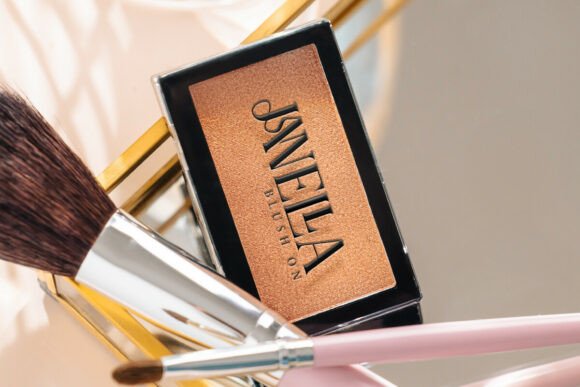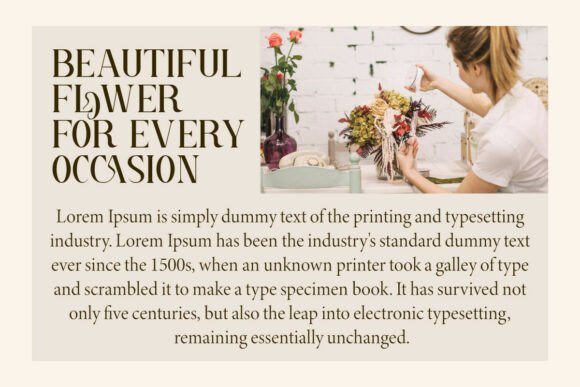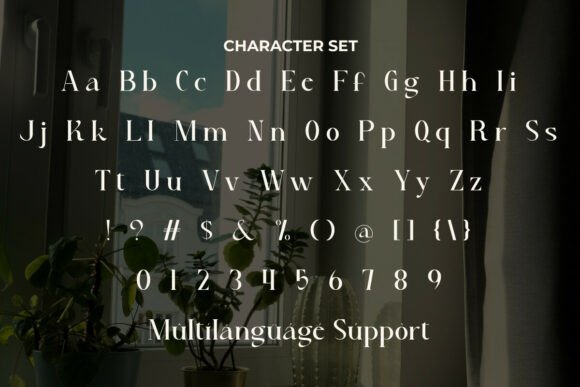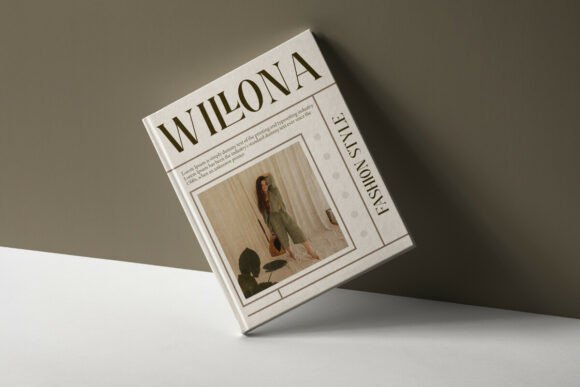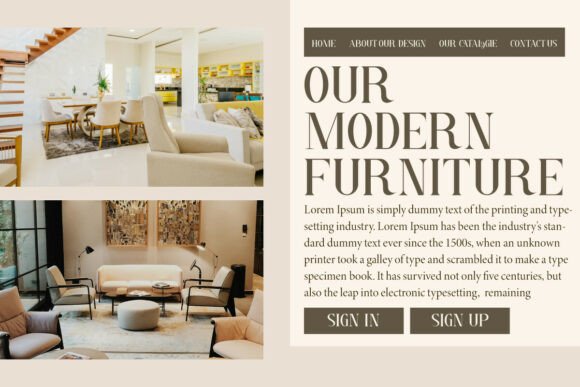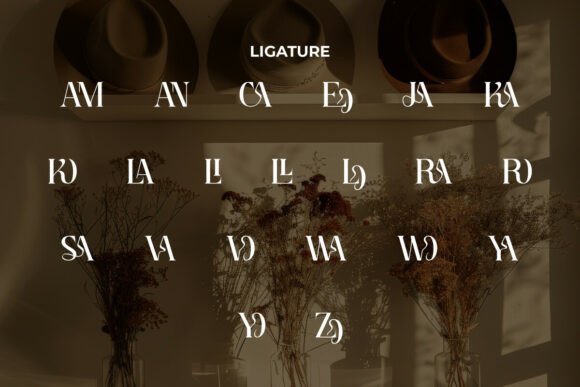
Introduction to Rowan Julio Font
Rowan Julio is a sophisticated serif that bridges the gap between classic tradition and modern flair.
This Rowan Julio font is characterized by its high-contrast strokes and unexpected, stylish curves that give it a โcustomโ feel The Rowan Julio typeface is perfectly suited for luxury branding, wine labels, and high-fashion identity systems.
Key Features of Rowan Julio Font